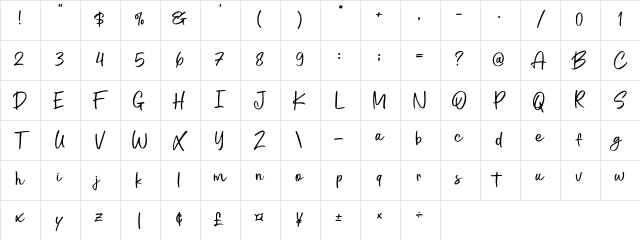
Vallite Regular Free Font
Vallite Regular
Foundry: Khurasan
Designer: Khurasan
Complete Vallite Regular glyph index. Displaying only characters natively supported by Vallite Regular font.
Design Context for Vallite
Vallite is a composed and adaptable typeface that performs quietly and consistently across a wide range of design contexts.